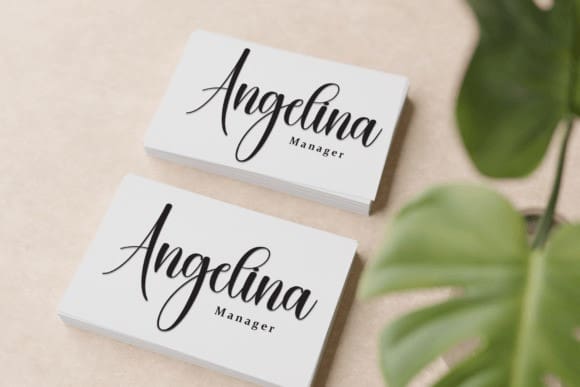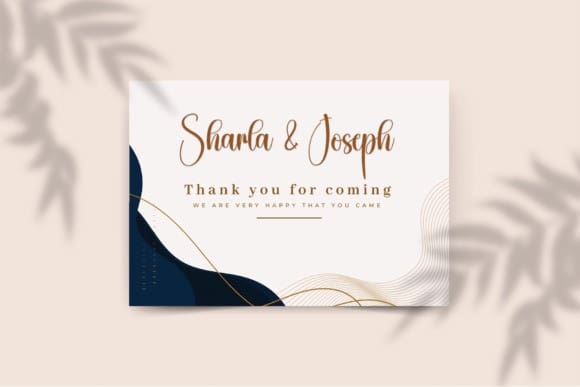
Drinking Script Font
Drinking Script Font is a sweet and friendly handwritten font. Its natural and unique style makes it incredibly fitting to a large pool of designs. The only limit is your imagination!